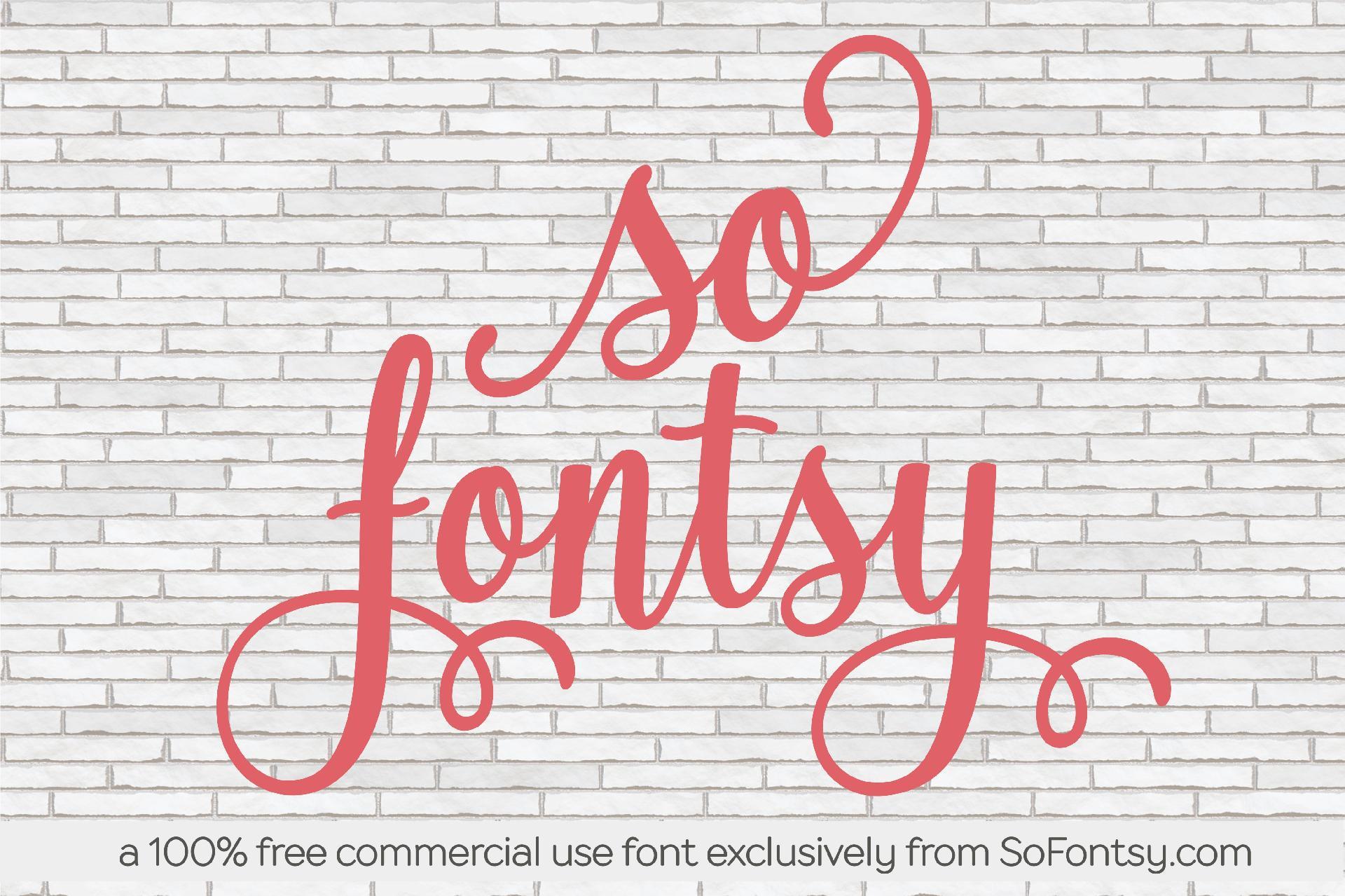
The So Fontsy Free Font: So Fontsy Exclusive
About The So Fontsy Free Font: So Fontsy Exclusive
Introducing the So Fontsy Font available as a free front exclusively on SoFontsy.com. This beautiful TTF font includes a full extra set of glyphs so you can customize the font with beautiful swirls. Specifically designed to be easy to cut and easy to stencil, So Fontsy font is free and includes the So Fontsy standard commercial use license.